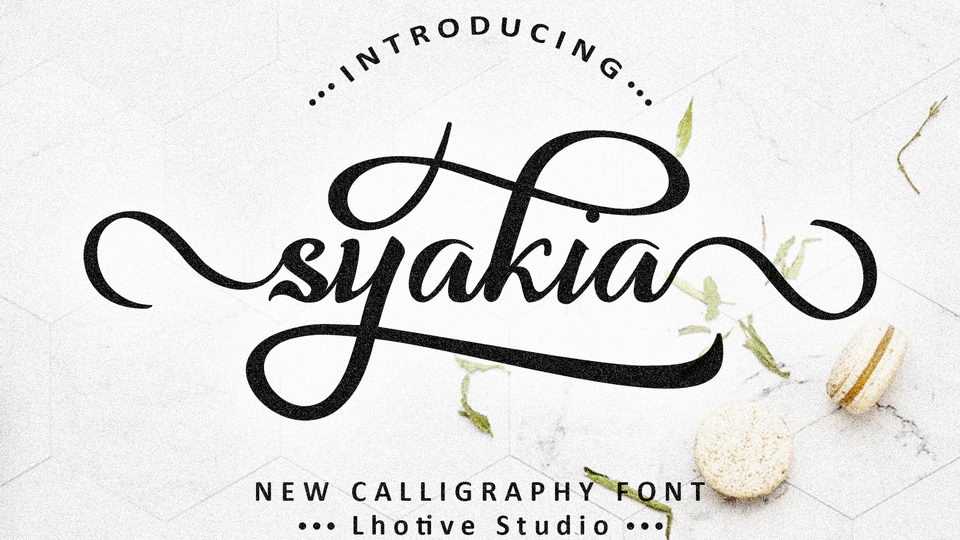
Download Syakia font, a modern calligraphy script with fancy swashes for all design needs. Syakia is perfect for greeting cards, branding, stationery design, social media, wedding invitation, magazine layouts, prints and more!
Designer: Lhotive Studio